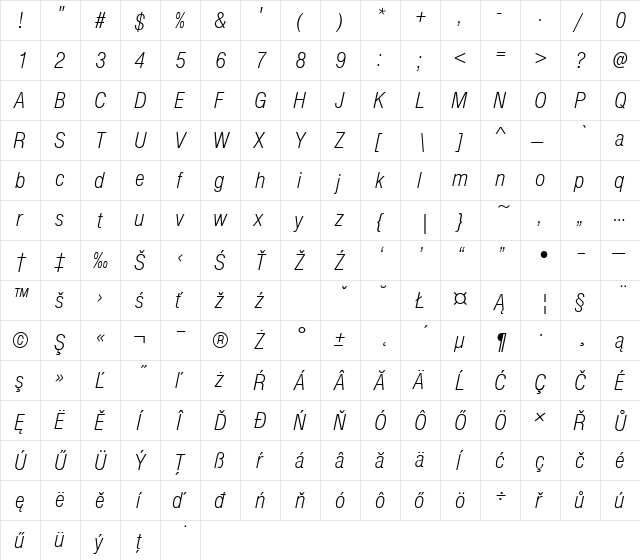
NimbuSanDEELigCon Italic
Design Context for NimbuSanDEELigCon Typeface
NimbuSanDEELigCon offers clean, dependable letterforms without strong stylistic allegiance, making it a practical choice for designers who need flexibility. The slanted form adds forward momentum and visual energy.
Pro Tip: Use NimbuSanDEELigCon for emphasis, pull quotes, and subheadings where its slanted energy can add rhythm to the layout.